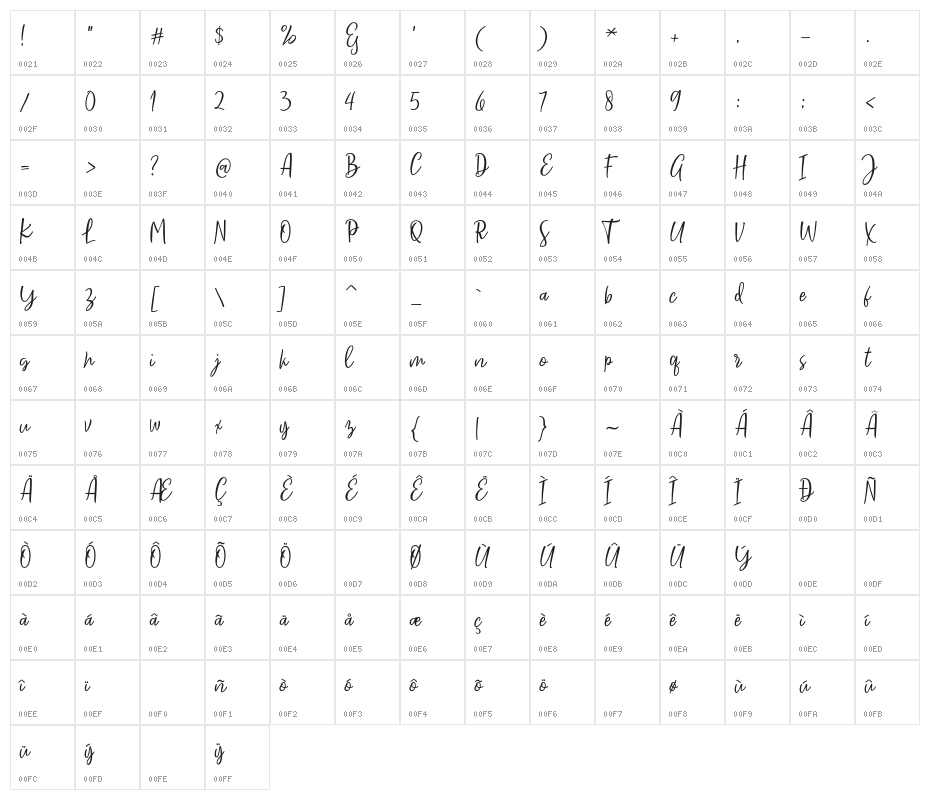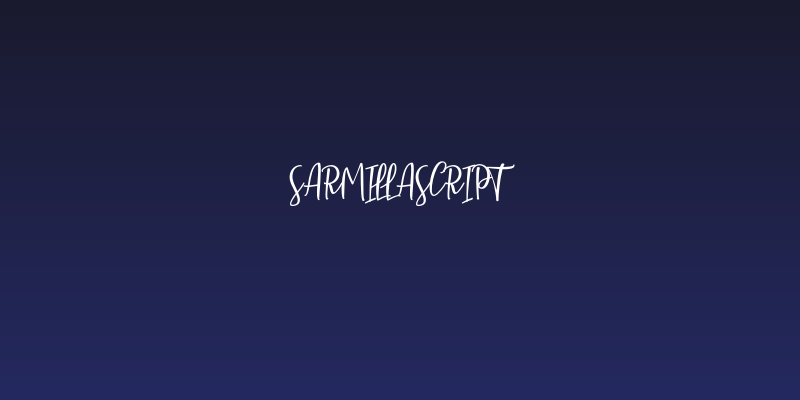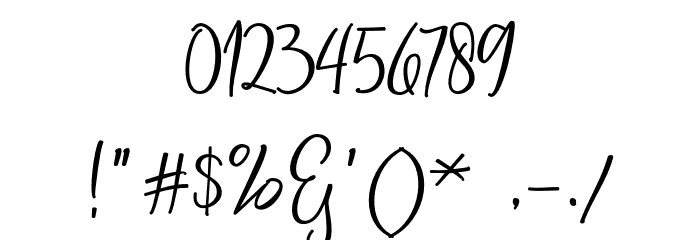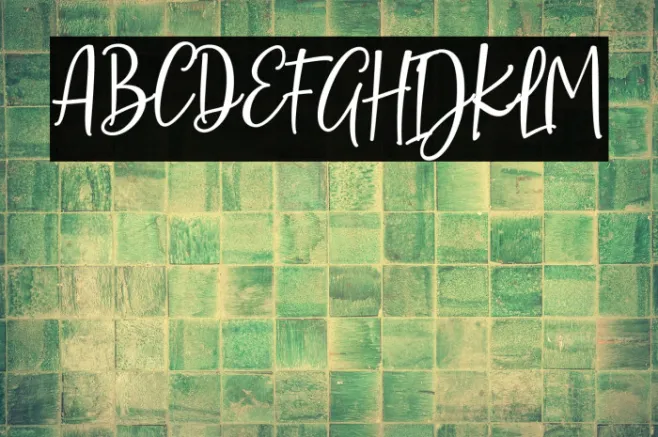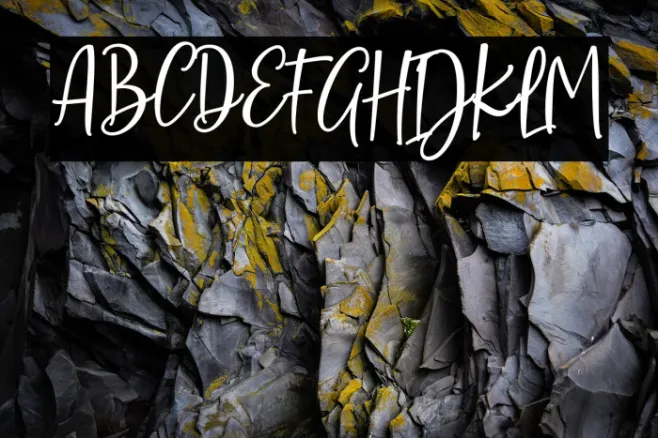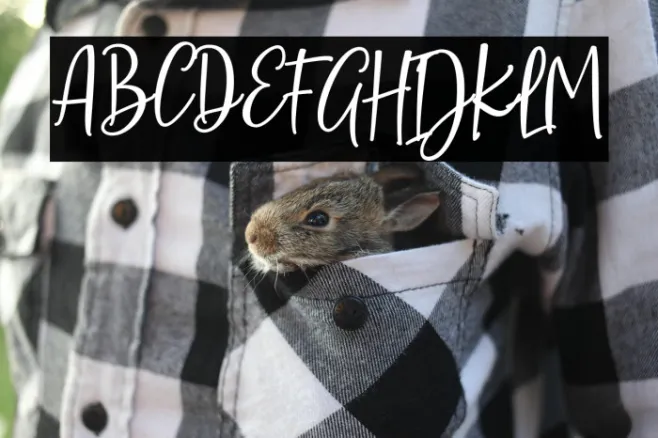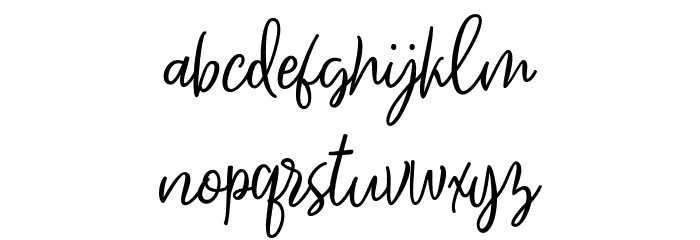
SarmillaScript Font
SarmillaScript Description
This font features a lively and flowing script style, characterized by its elegant, handwritten appearance. The uppercase letters are bold and slightly slanted, giving a dynamic and energetic feel. The lowercase letters maintain a consistent flow, with smooth curves and loops that enhance its handwritten charm. The numerals are clear and legible, matching the overall style with a touch of sophistication. Special characters are well-integrated, maintaining the font's cohesive look. This font is perfect for projects that require a personal touch, such as invitations, greeting cards, or branding materials.